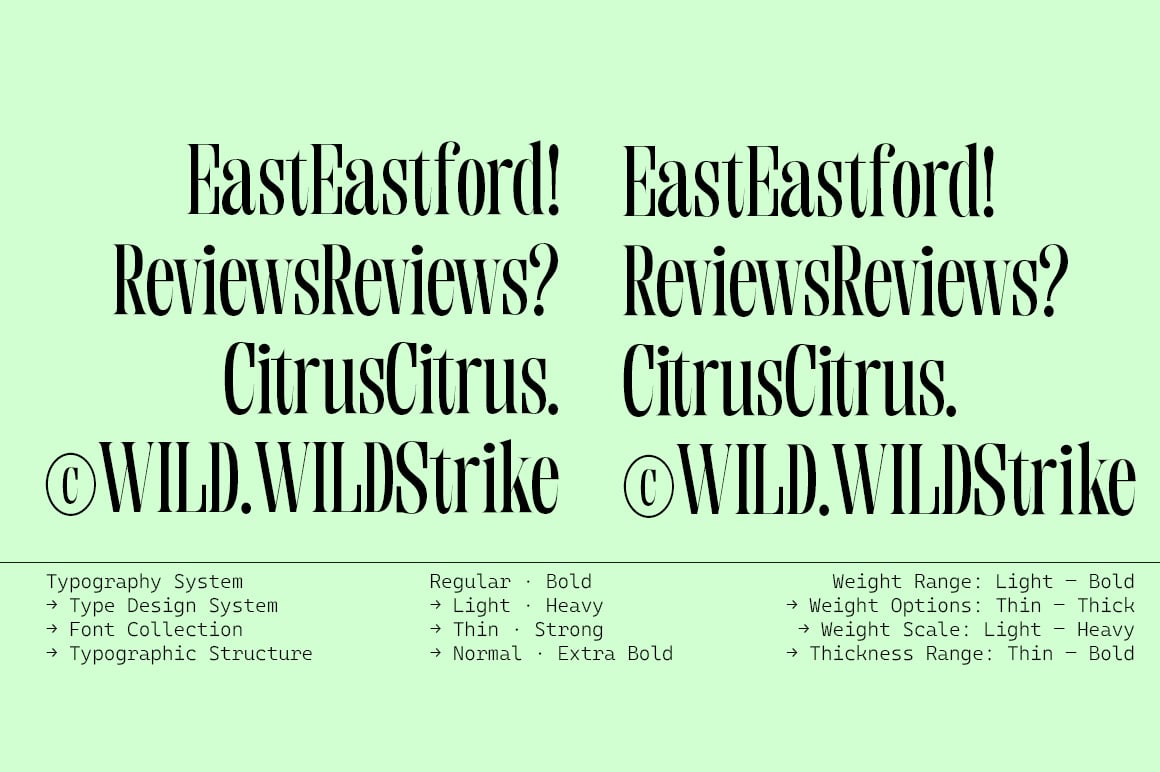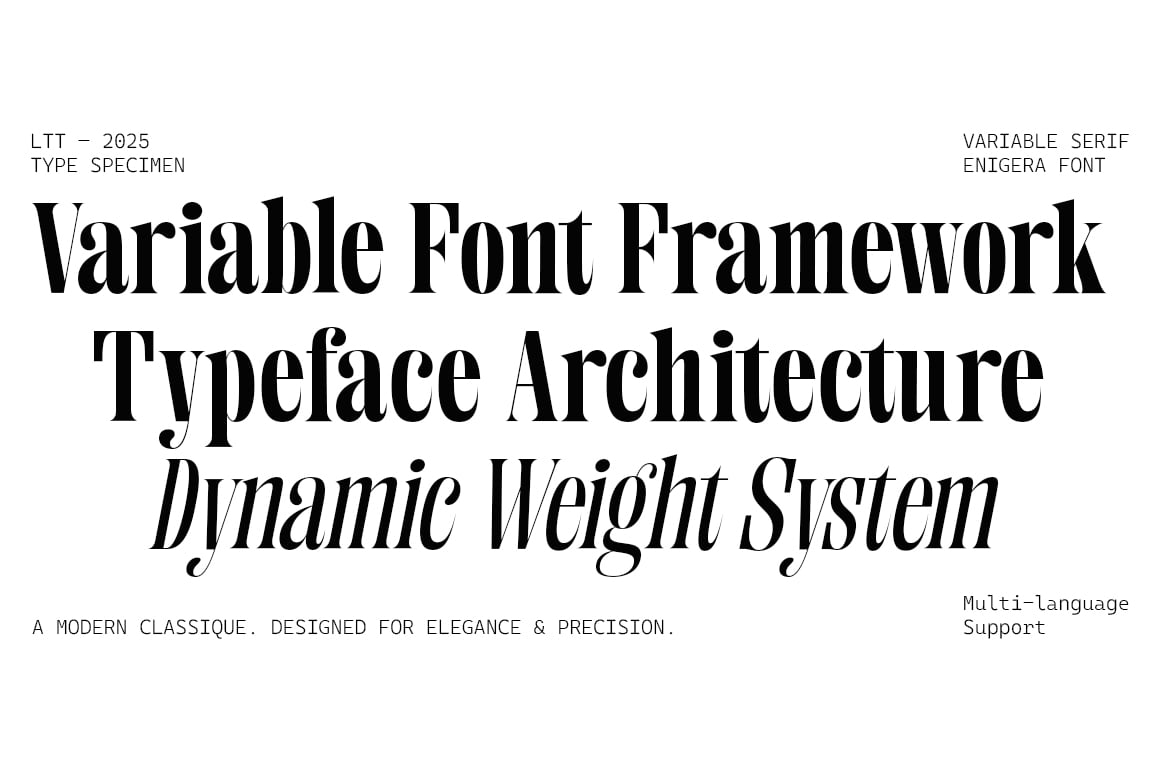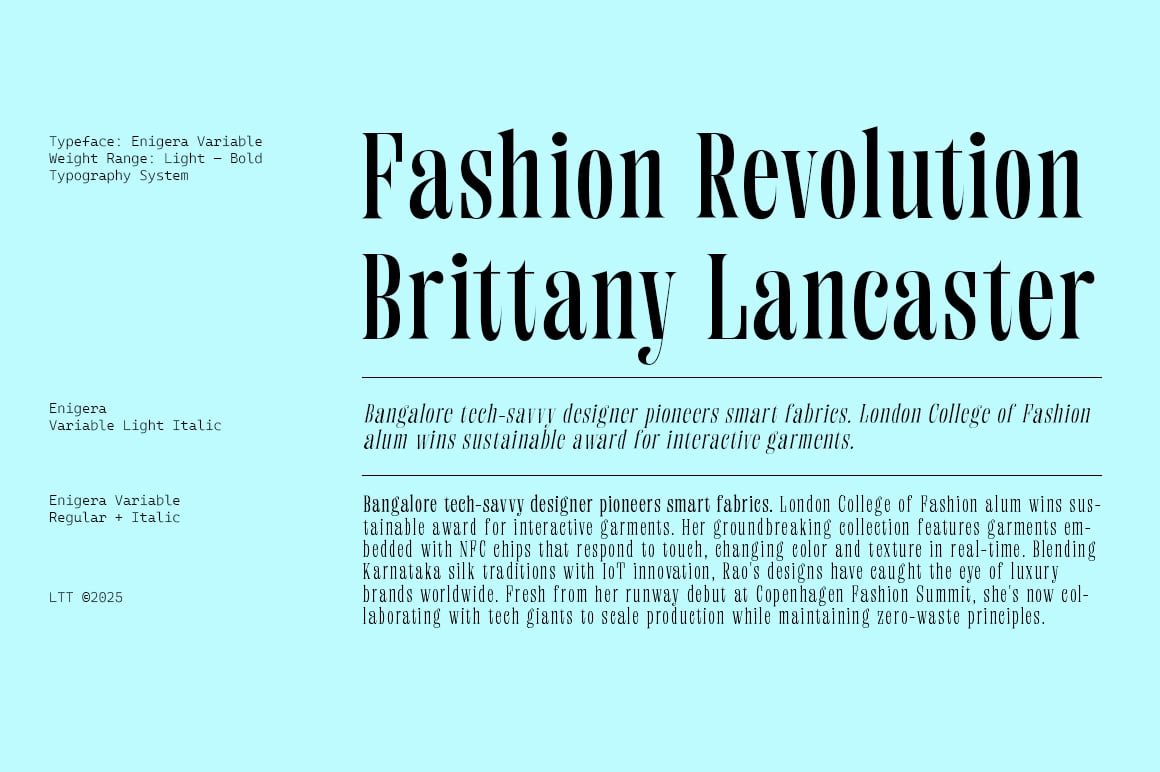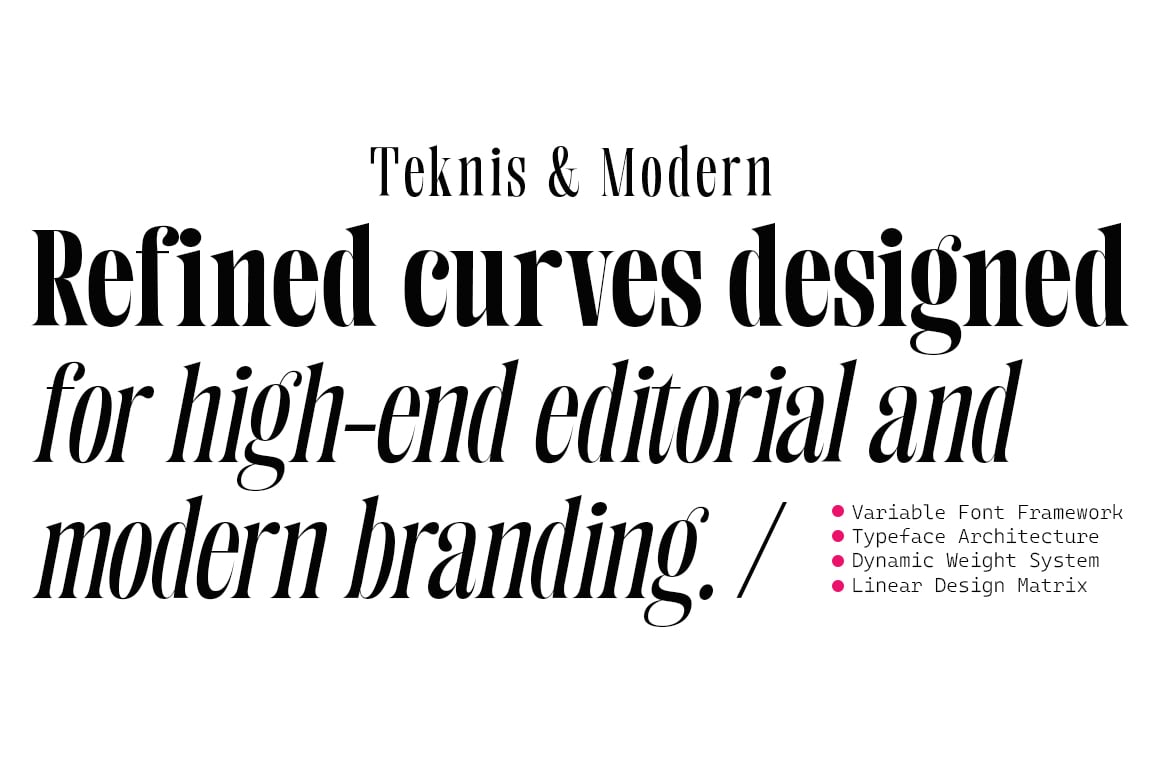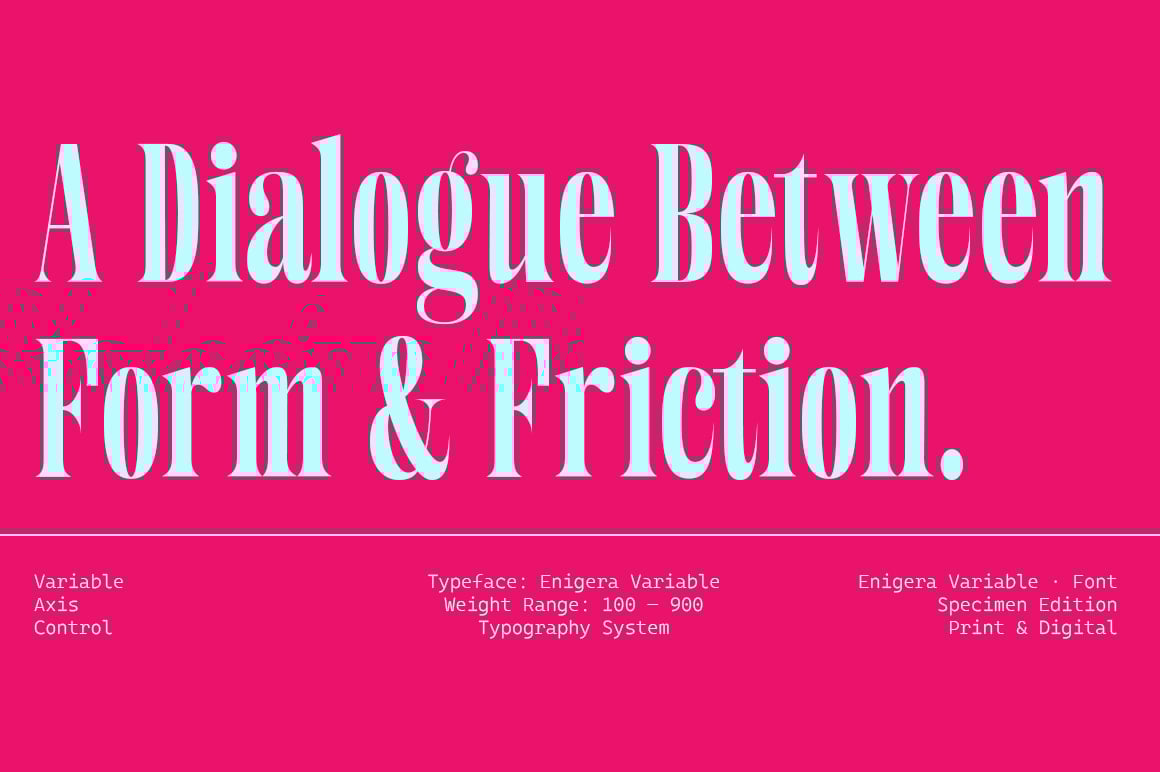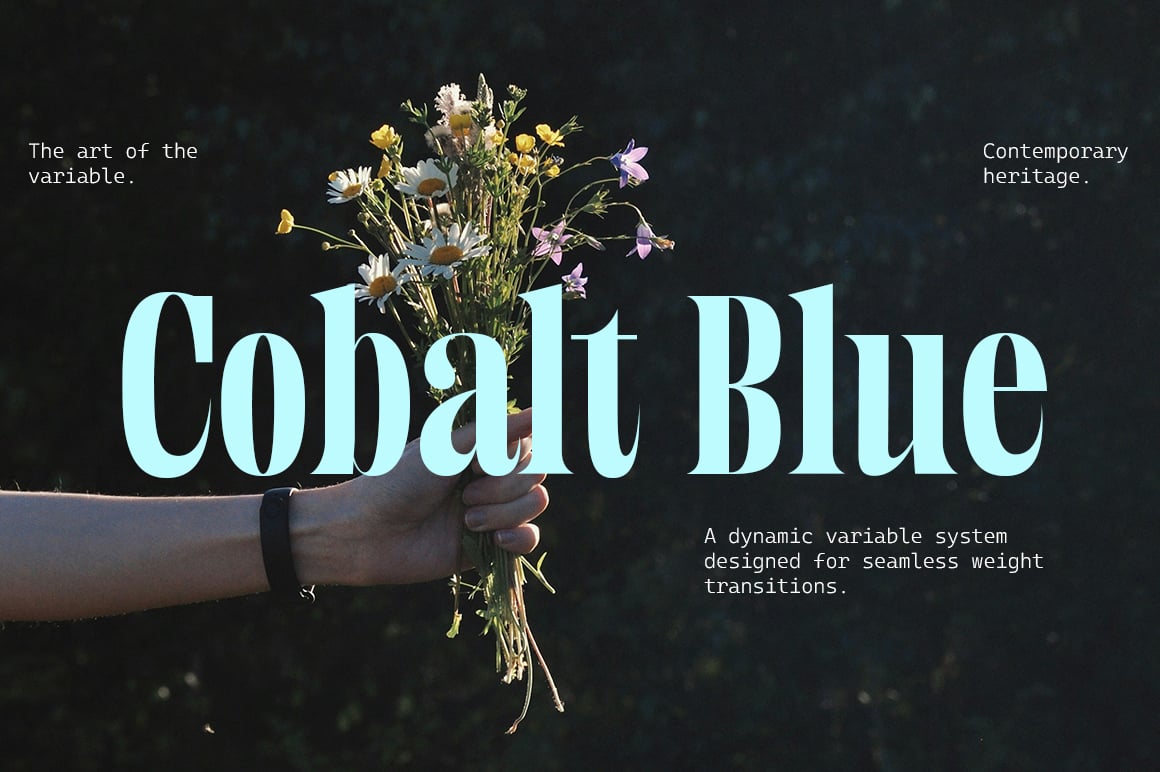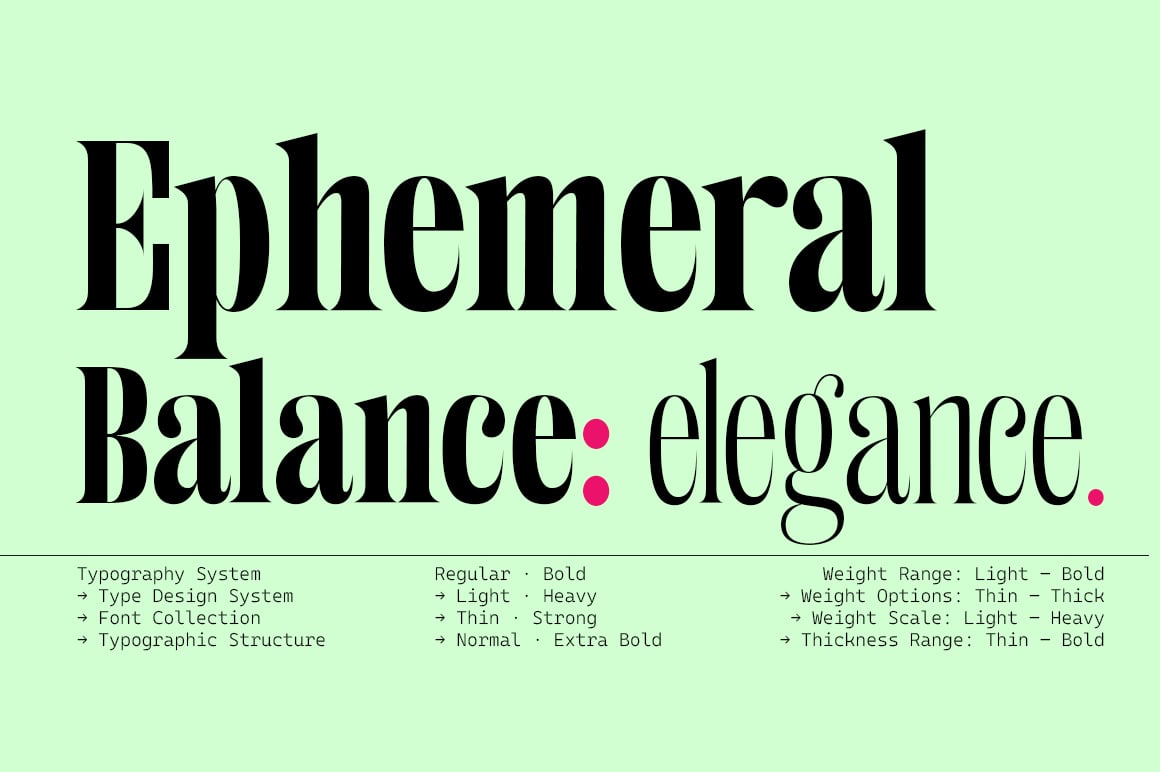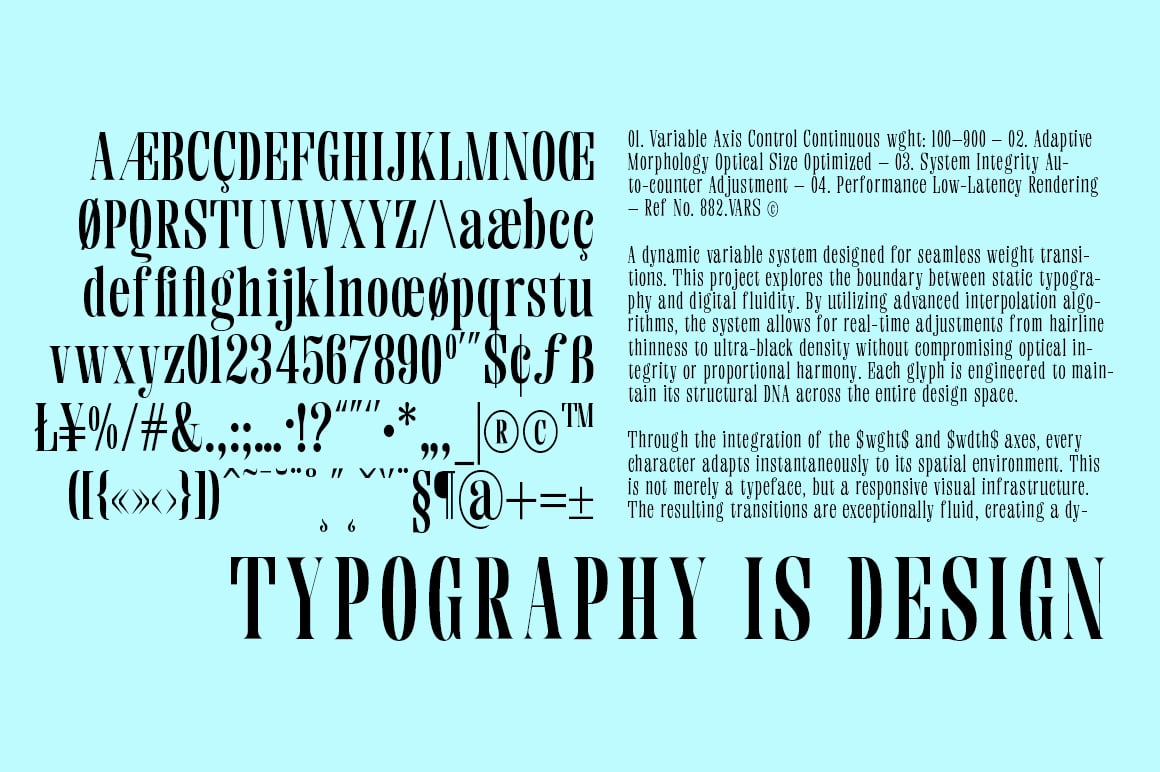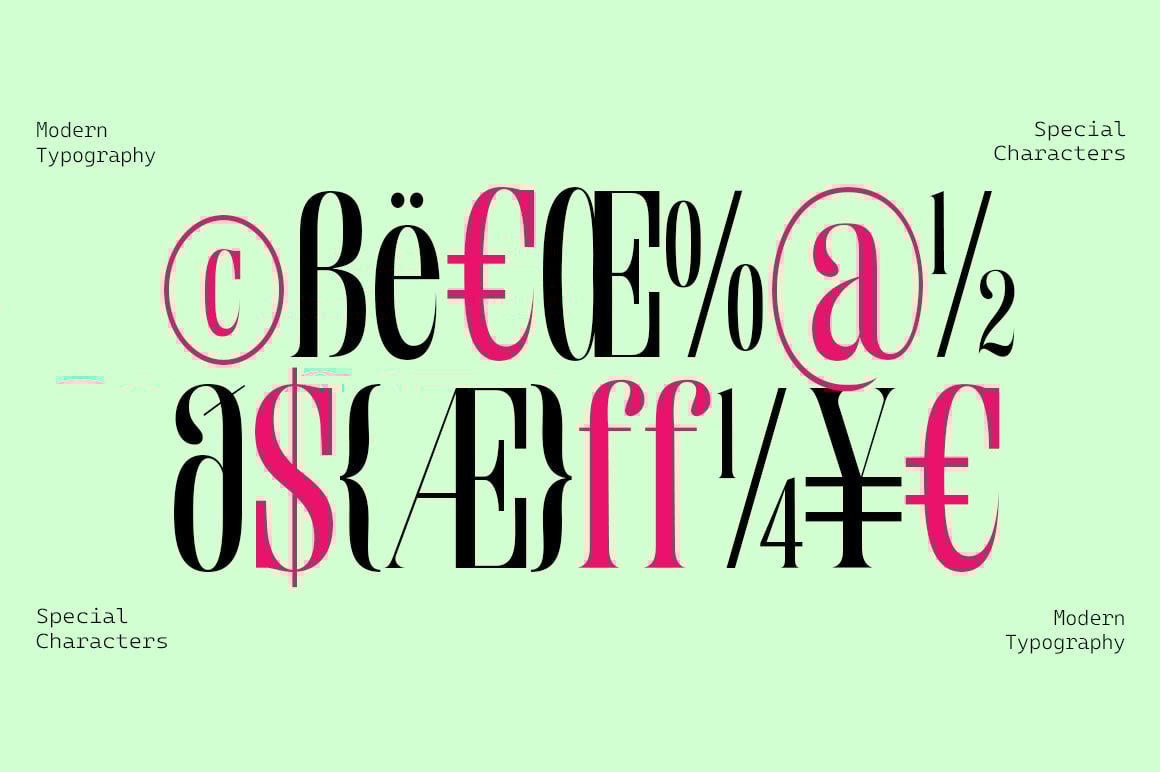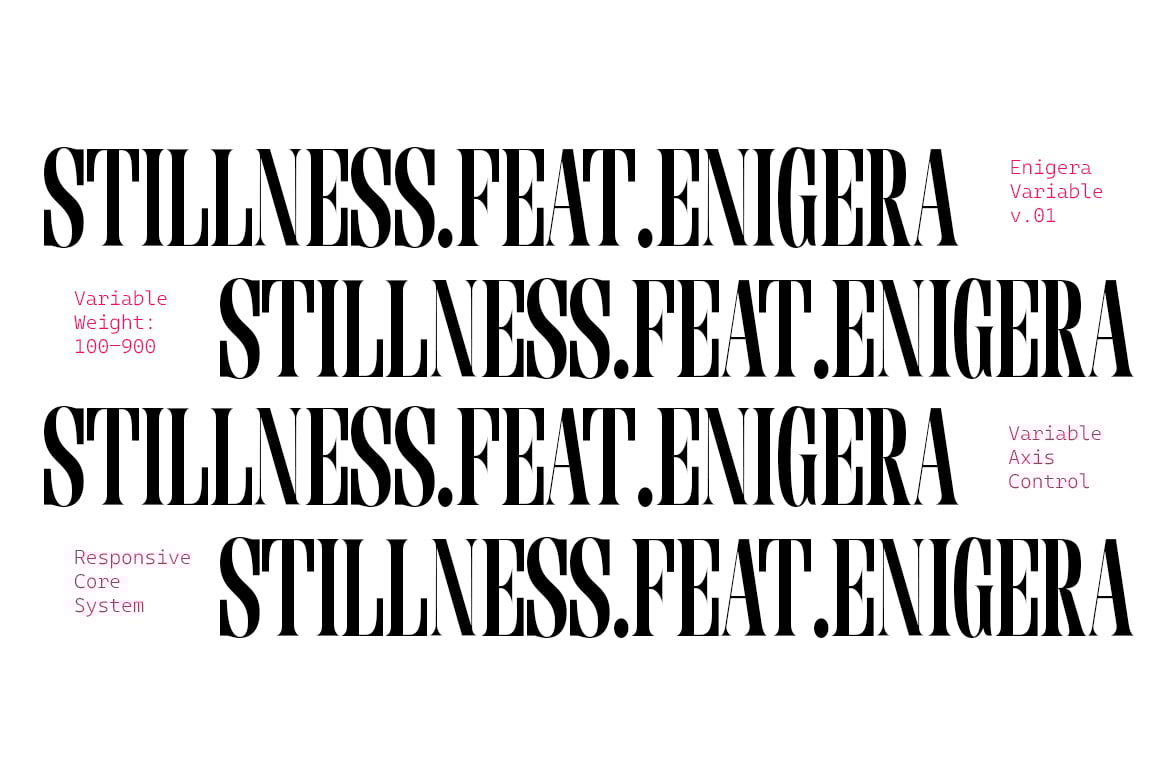
Enigera Variable | Modern Serif Typeface
Designed by Aqeela Studio
Enigera Variable is a modern serif typeface defined by a refined balance of elegance, detail, and clarity. Its letterforms feature smooth curves, well-controlled contrast, and carefully crafted serifs that feel sophisticated without appearing overly ornate.
As a variable font, Enigera offers exceptional flexibility. With a weight range spanning from Light to Bold, it allows designers to create cohesive and expressive typographic systems across diverse layouts and media. Its balanced proportions ensure strong readability, making it equally effective for high-impact display text and functional supporting copy.
Key Features
.Variable Versatility: Smooth transitions across weight axes for precise design control.
.Timeless Aesthetic: A contemporary serif style that balances unique character with professionalism.
Ideal For:
Editorial & Magazine Design: Perfect for layouts requiring a distinct visual hierarchy.
Premium Branding: Elevates visual identities with a sophisticated, high-end touch.
Posters & Headlines: Commands attention with refined, sharp details.
Multi-Platform Use: Seamless transition between high-resolution print and digital applications.